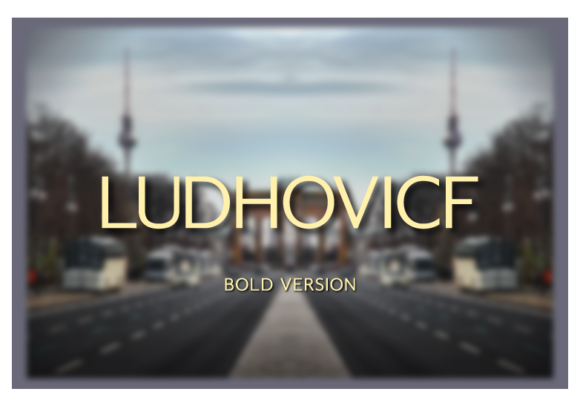
Introduce yourself to the majestic Ludhovicf Bold Font, a sans serif type family that masterfully fuses the charm of Spanish architecture with the simplicity of modern design. Crafted by the ingenious A Christie, this font is an artistic marvel that can transform your creative projects into captivating visual masterpieces.
Unleash your creativity with this extraordinary font, where each character emanates elegance and distinction. Its unique cut-ins and soft curves are akin to chiseled stone, evoking the grandeur of Spanish architecture. Witness how Ludhovicf Bold transcends the boundaries of ordinary typography, captivating your audience with its distinct visual language.
Imagine your words dancing across the page, exuding a timeless allure and commanding attention with every stroke. Ludhovicf Bold's carefully crafted letterforms create a harmonious balance between tradition and modernity, adding a touch of sophistication to any project. Its meticulously designed curves and sharp angles ensure that your designs radiate professionalism and polish.
Step into a world of versatility with Ludhovicf Bold, a font that effortlessly adapts to a symphony of creative endeavors. Its remarkable flexibility makes it the ideal choice for logos, branding, invitations, posters, social media, and more. Watch as your designs come to life with a font that seamlessly blends the essence of the past with the vibrancy of the present.
Witness the undeniable power of Ludhovicf Bold, a font that evokes emotion and captivates imaginations. Let your designs resonate with your audience, igniting connections and leaving lasting impressions. Experience the transformative impact of typography as you unleash the full potential of this extraordinary font.